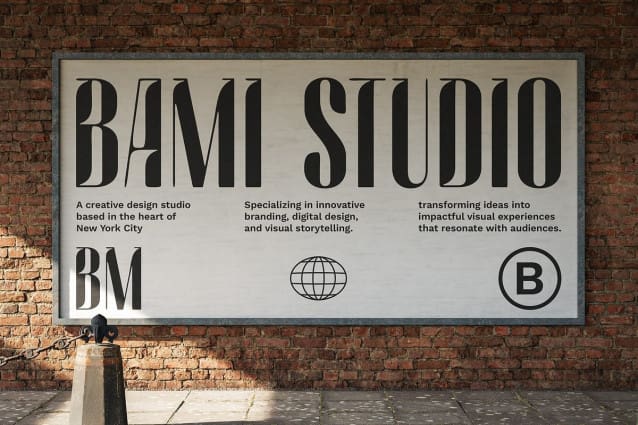
CS Carlos Drawn Font
CS Carlos Drawn Font is a striking condensed sans serif font that seamlessly blends modern design with a touch of artistic flair. Its sleek, slim profile is crafted for optimal clarity and assertiveness, making it an excellent choice for a variety of design applications. The condensed nature of the font allows for efficient use of space without sacrificing readability, making it perfect for headlines, display text, and graphic elements that need to make a strong visual impact.
Efficient Use of Space with Strong Visual Impact The slim profile of this drawn font allows for efficient use of space, making it perfect for headlines, display text, and various graphic elements. This condensed format not only maximizes readability but also ensures that your message stands out boldly, making a significant impression in any context.
Artistic Flair Through Unique Hand-Drawn Details The drawn effect incorporated into this font adds a creative and personal touch to each letterform, infusing the font with a distinct character that breathes life into your designs. This blend of modernity and artistic detail results in a visually appealing font that captures attention while maintaining functionality.